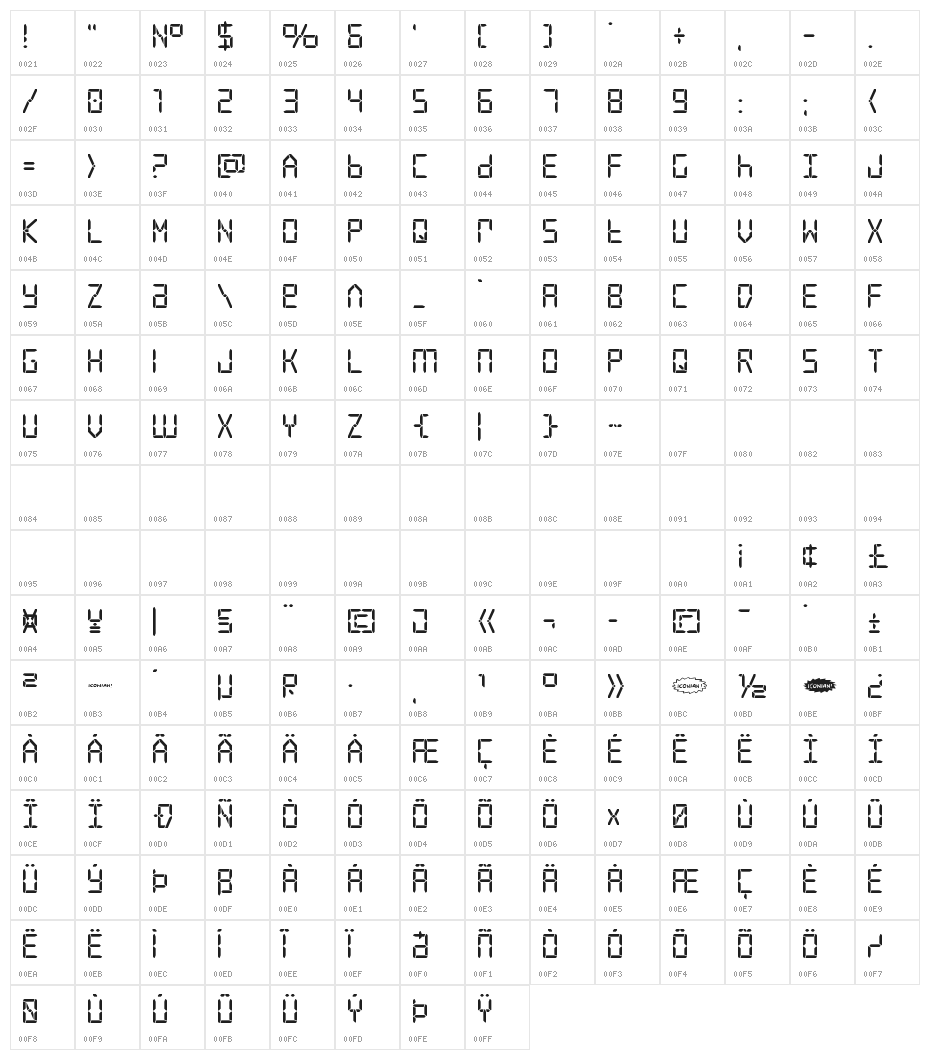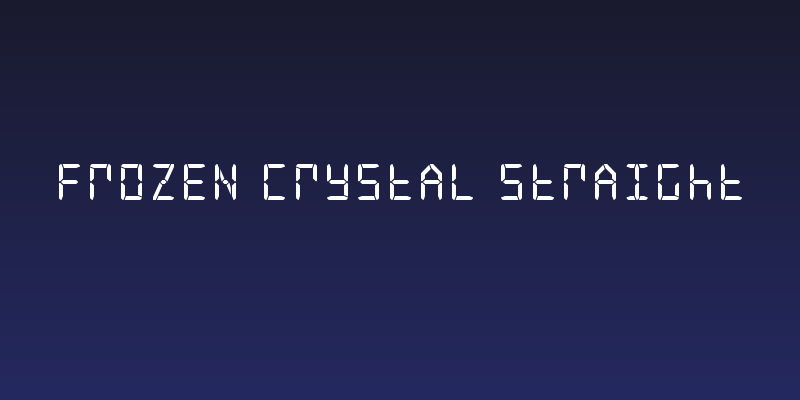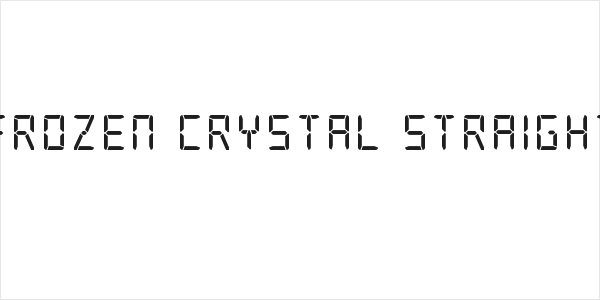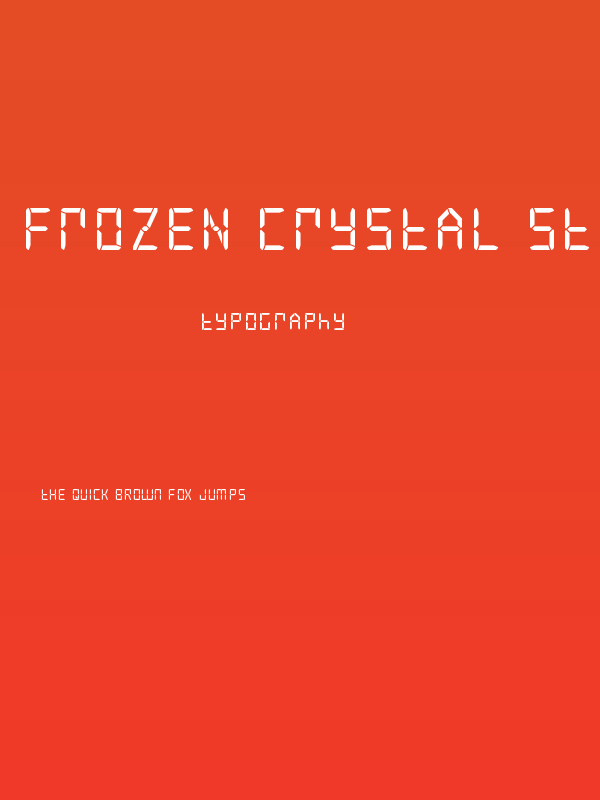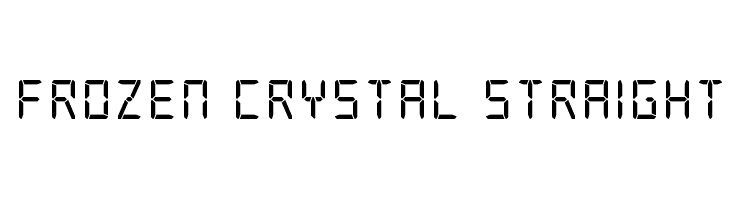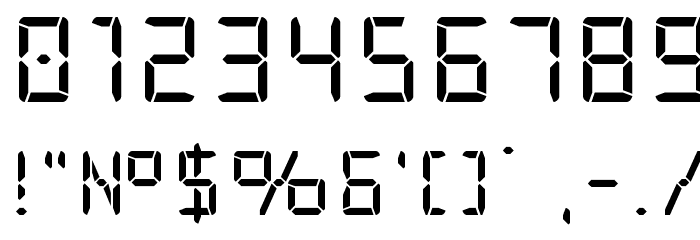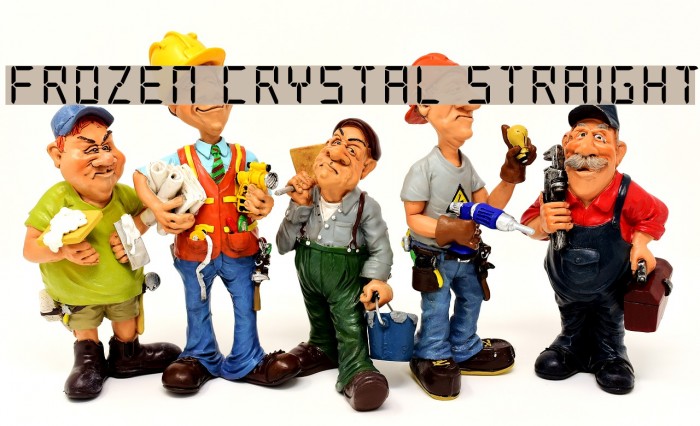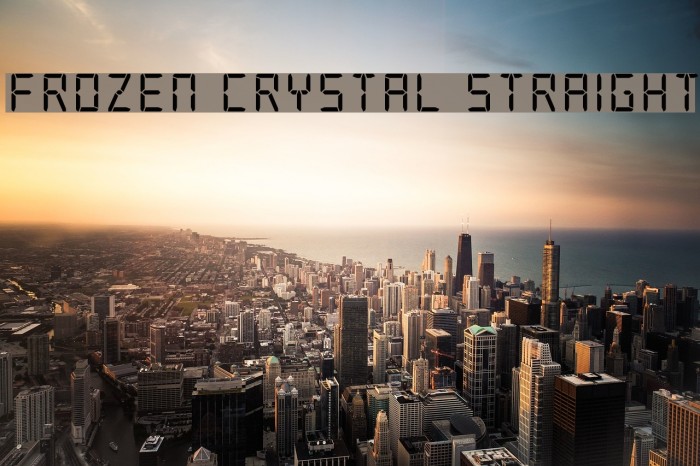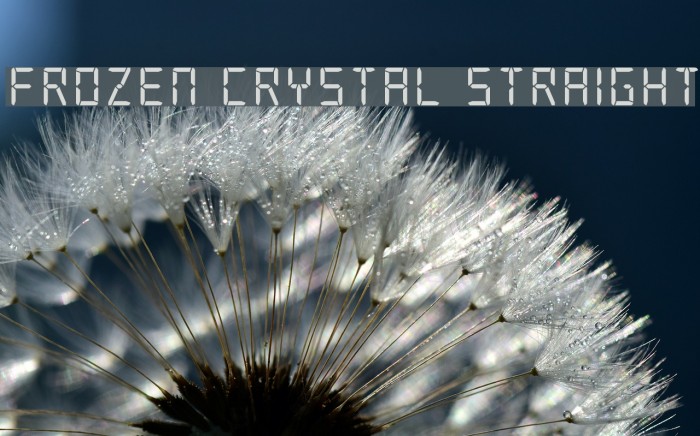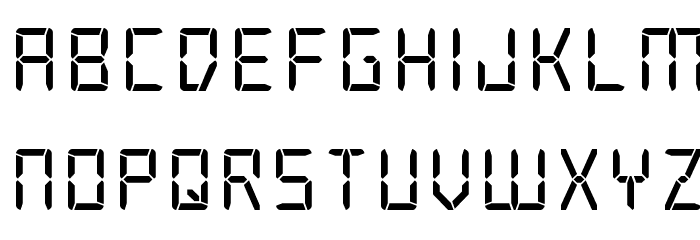
Frozen Crystal Straight Font
Frozen Crystal Straight Description
This font features a geometric, digital-inspired design reminiscent of LED or LCD displays. Each character is constructed with angular, segmented lines that create a futuristic and technical appearance. The uppercase and lowercase letters maintain a consistent style, emphasizing uniformity and precision. Numbers and special characters follow the same segmented pattern, enhancing the cohesive look. The font's structure is clean and minimalistic, making it suitable for modern and tech-oriented projects. Its distinct style captures attention and conveys a sense of innovation and digital sophistication.
| Proposed Projects | Perfect for digital interfaces, tech branding, futuristic posters, and electronic-themed designs. |